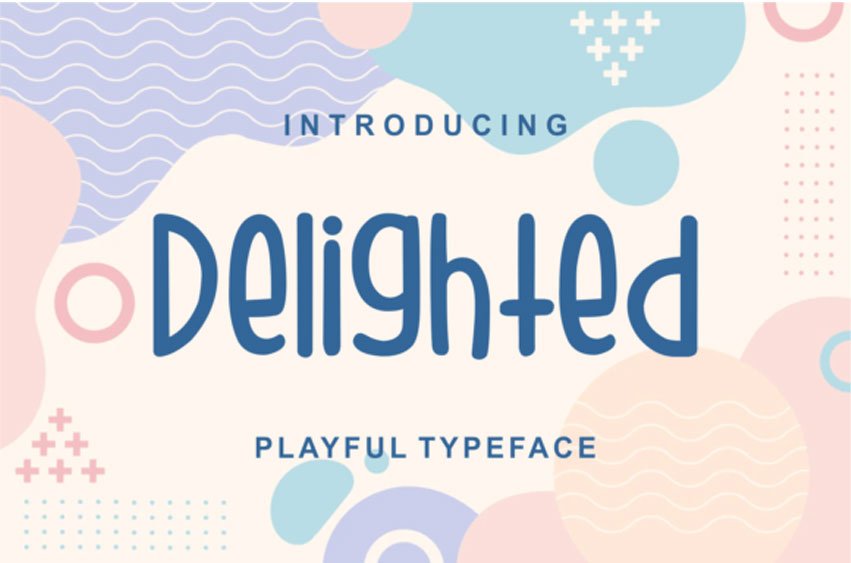
Delighted Font
Delighted Font is an uneven, unpredictable, fun font that makes your projects smile and will inspire you to create something fun and memorable.
It is suitable for titles, pamphlets, greeting cards, product packaging, book covers, printed quotes, logotypes, clothing designs, album covers, etc.